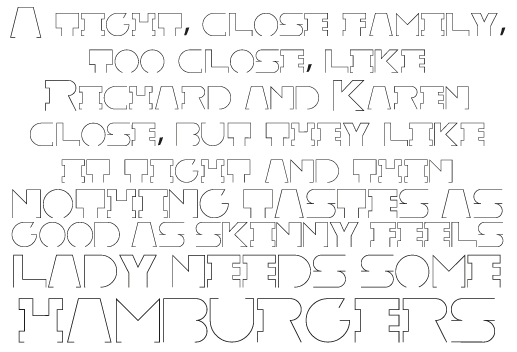
This is an outline skinny minimal font based on various block type designs out there in the ether. As of now it is only a standard alphabet but if popular I will continue to update. So I value each of my fonts at $200 (I picked the number out of A$$) for every $200 donated for my fonts I will make a font Freeware). So far I reckon I've had about $300 in donations over the year from 135,000 downloads, the numbers add up right? Anyway I've made 4 of my fonts available free and I will continue to do so for every $200 raised from now on. This probably won't change anything but I'm putting it out there. Donate Macht Frei! |